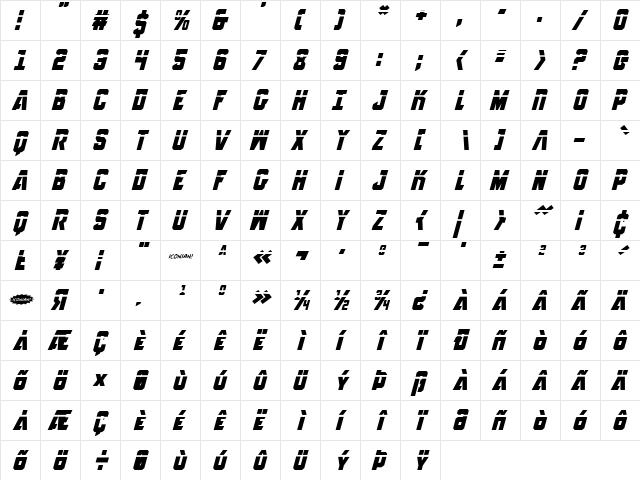
Anitlles Laser Italic Italic
Design Context for Anitlles Laser Italic Typeface
Anitlles Laser Italic is a composed and adaptable typeface that performs quietly and consistently across a wide range of design contexts. Its italic angle brings a sense of urgency and motion to the letterforms.
Pro Tip: Use Anitlles Laser Italic for emphasis, pull quotes, and subheadings where its slanted energy can add rhythm to the layout.